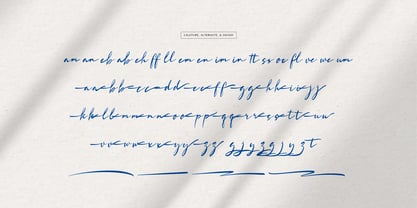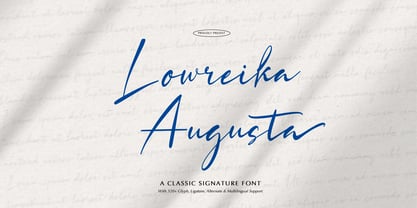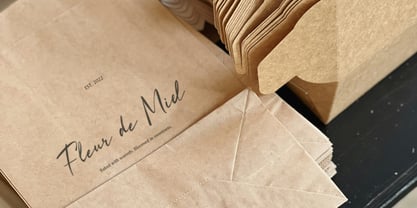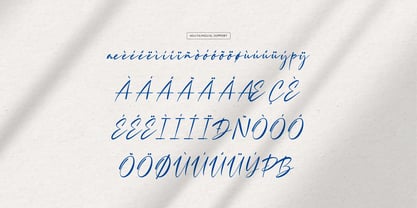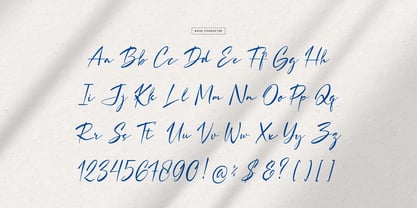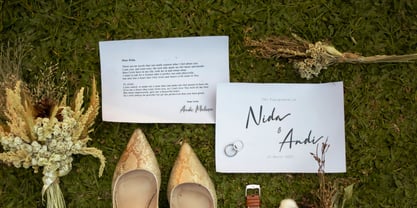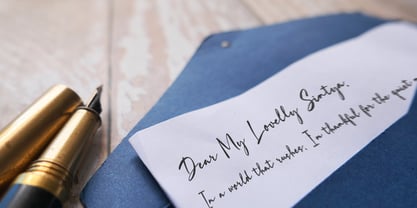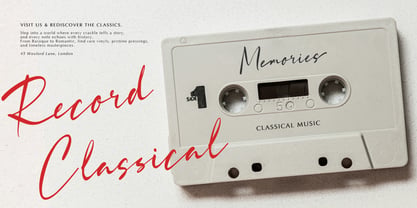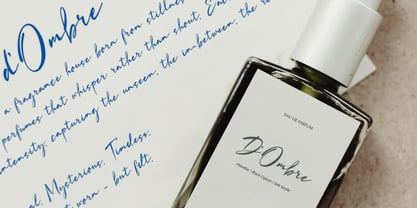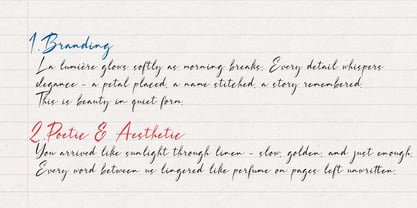
Lowreika Augusta
Lowreika Augusta | Classic Signature Font, from Gracetypestudio, suitable for any projects such as: logos, branding projects, homeware designs, product packaging, mugs, quotes, posters, shopping bags, t-shirts, book covers, name card, invitation cards, greeting cards, label, photography, watermark, special events, and all your other lovely projects that need a Classic Signature Font taste.
• Regular and Italic
• Alternate and Ligature
• Fonts include multilingual support